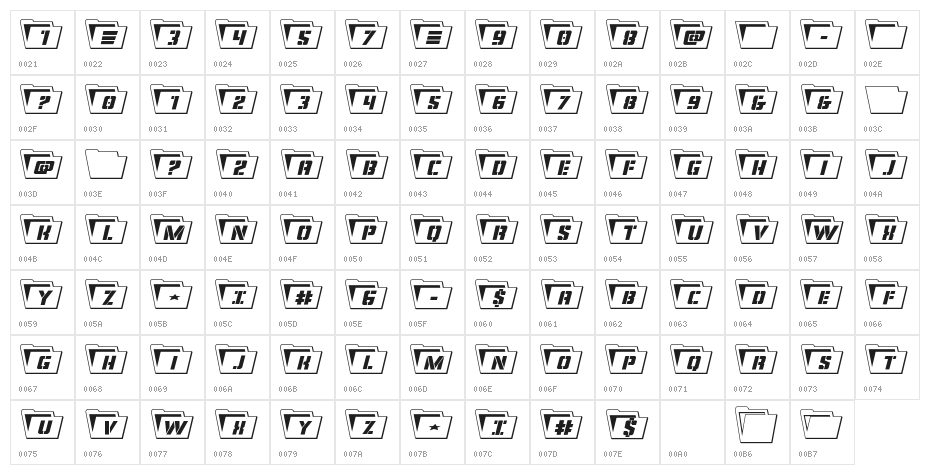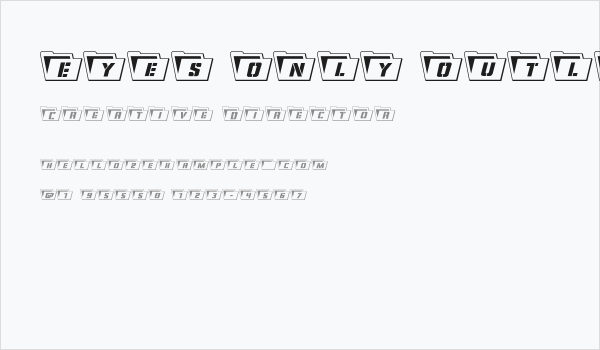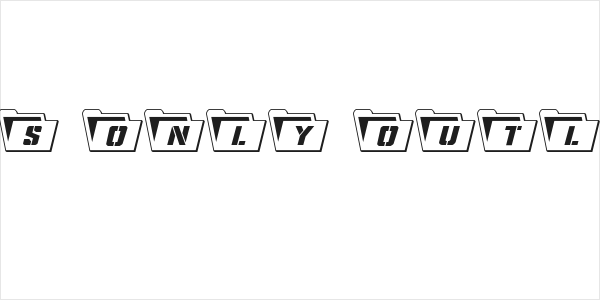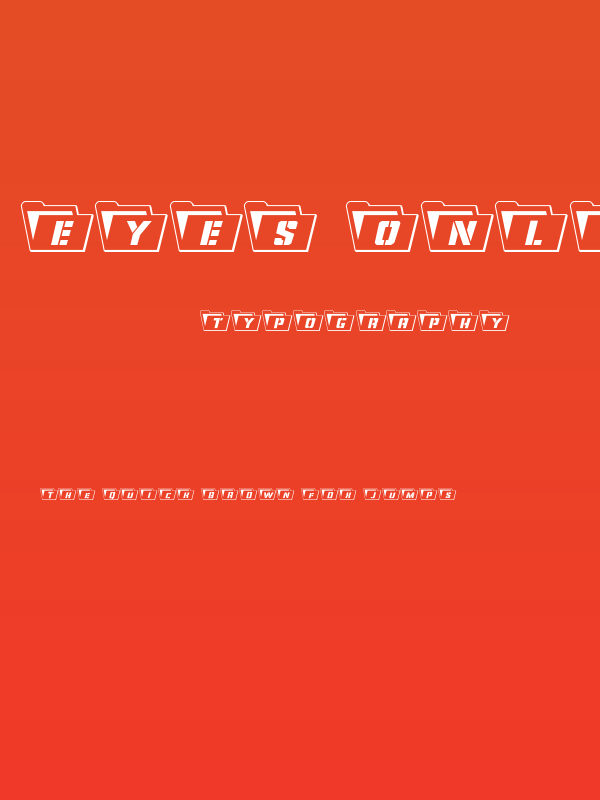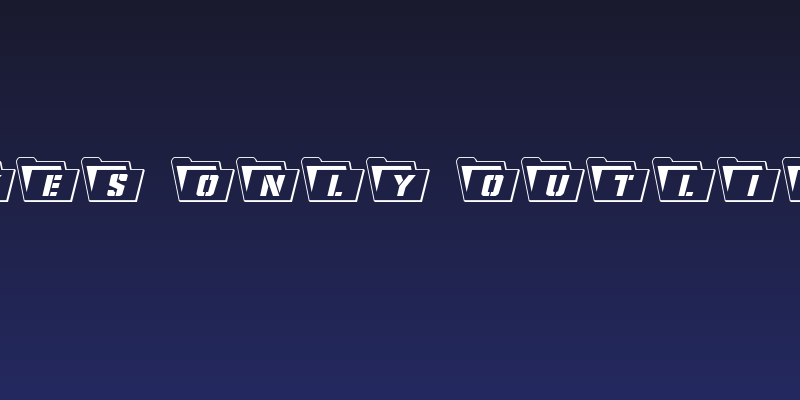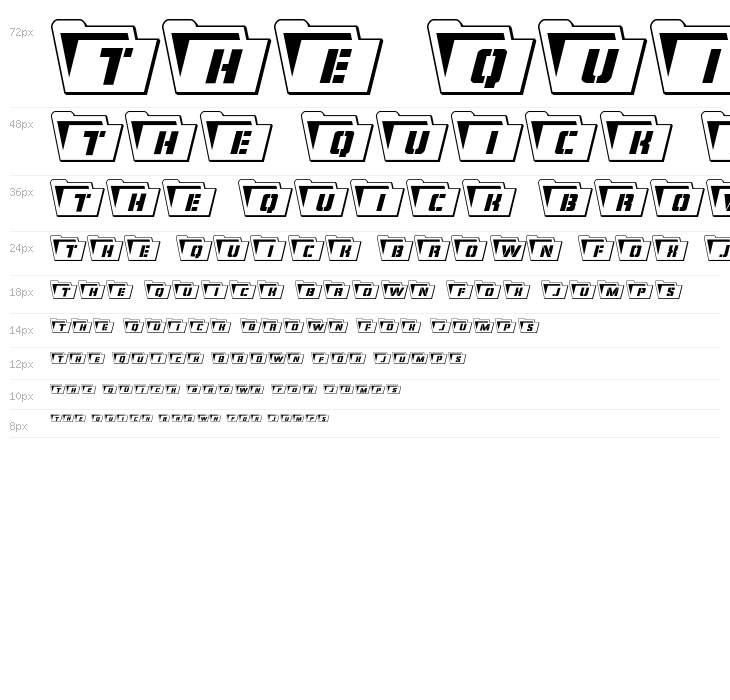
Eyes Only Outline Font
Eyes Only Outline Description
This unique font features characters enclosed within folder-like outlines, creating a distinctive and modern appearance. Each letter and number is bold and angular, with a consistent design that emphasizes clarity and readability. The style is reminiscent of digital or technological themes, making it ideal for projects that require a futuristic or tech-savvy look. The characters are uniformly spaced, ensuring a clean and organized presentation. The font's boldness and high contrast between the black characters and white outlines enhance its visibility, making it suitable for various display purposes.
| Proposed Projects | Ideal for tech branding, digital media, futuristic posters, and software interfaces. |